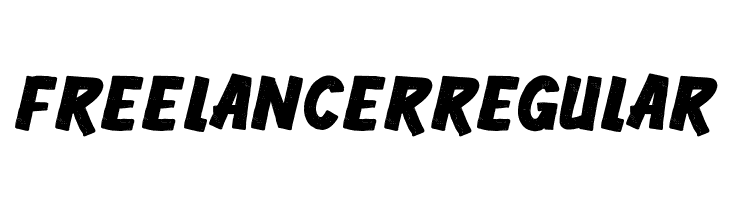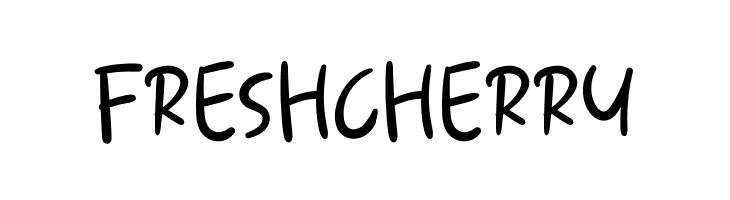
( Fonts by Don Marciano )
A bold, textured font with a vintage, handcrafted look.
( Fonts by Huston Vincen )
A playful, casual handwritten font with smooth curves and a friendly appearance.
( Fonts by Mas Yudi )
A playful and casual handwritten font with smooth curves and a friendly feel.
( Fonts by www.dcoxy.com )
A bold, playful font with a hand-drawn, energetic style.
( Fonts by www.dcoxy.com )
A bold, decorative font with a unique horizontal striped pattern.
( Fonts by Chank Co. - www.chank.com )
A bold, playful handwritten font with dynamic strokes and a whimsical appearance.
( Fonts by Kotak Kuning Studio )
A bold, handwritten-style font with rounded, playful characters.
( Fonts by Kate Matheson )
A playful handwritten font with a casual and friendly style.